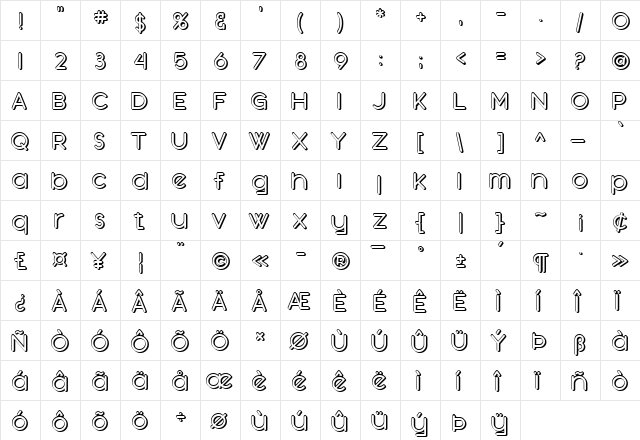
SF Orson Casual Shaded Regular
| Designer | ShyFonts Type Foundry |
Design Context for SF Orson Casual Shaded Typeface
SF Orson Casual Shaded takes a measured approach to typography — its balanced proportions and neutral character make it a reliable workhorse for both digital and print work.